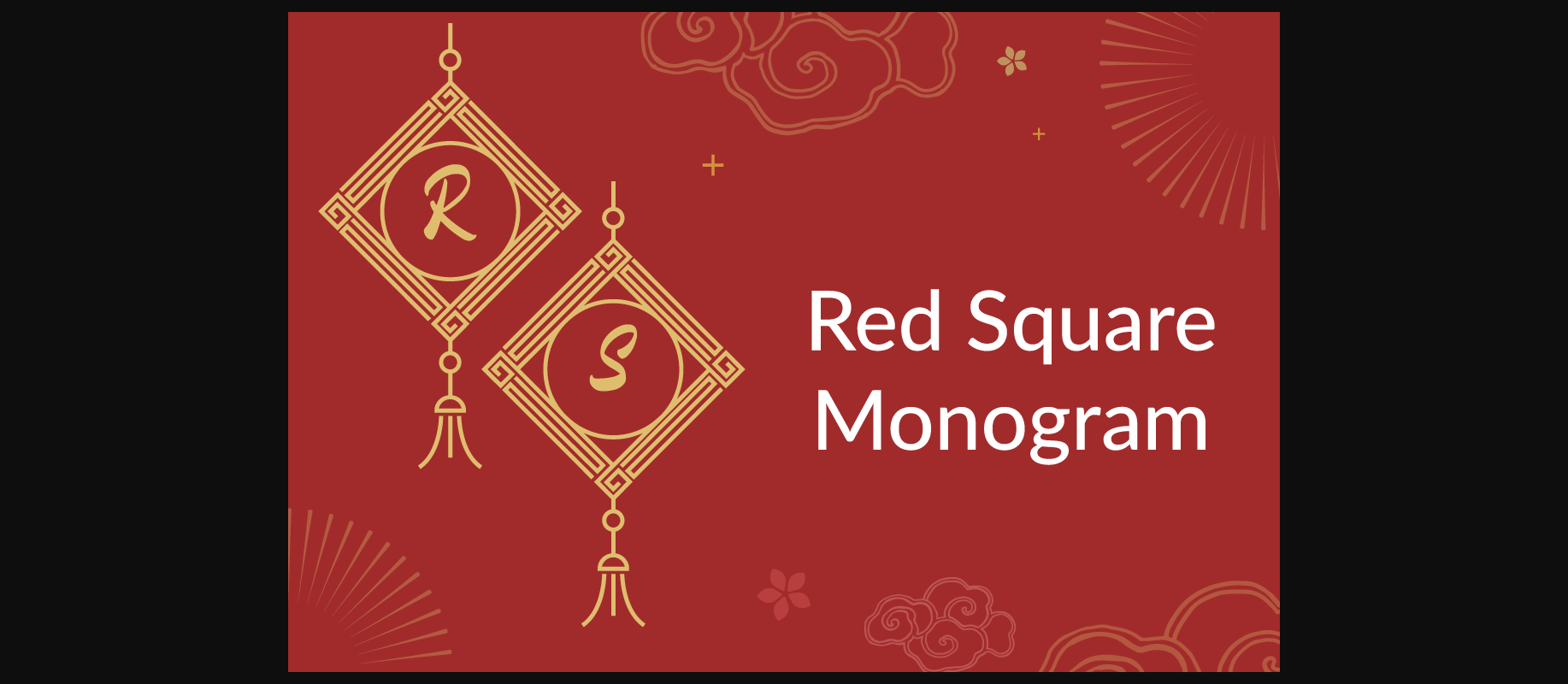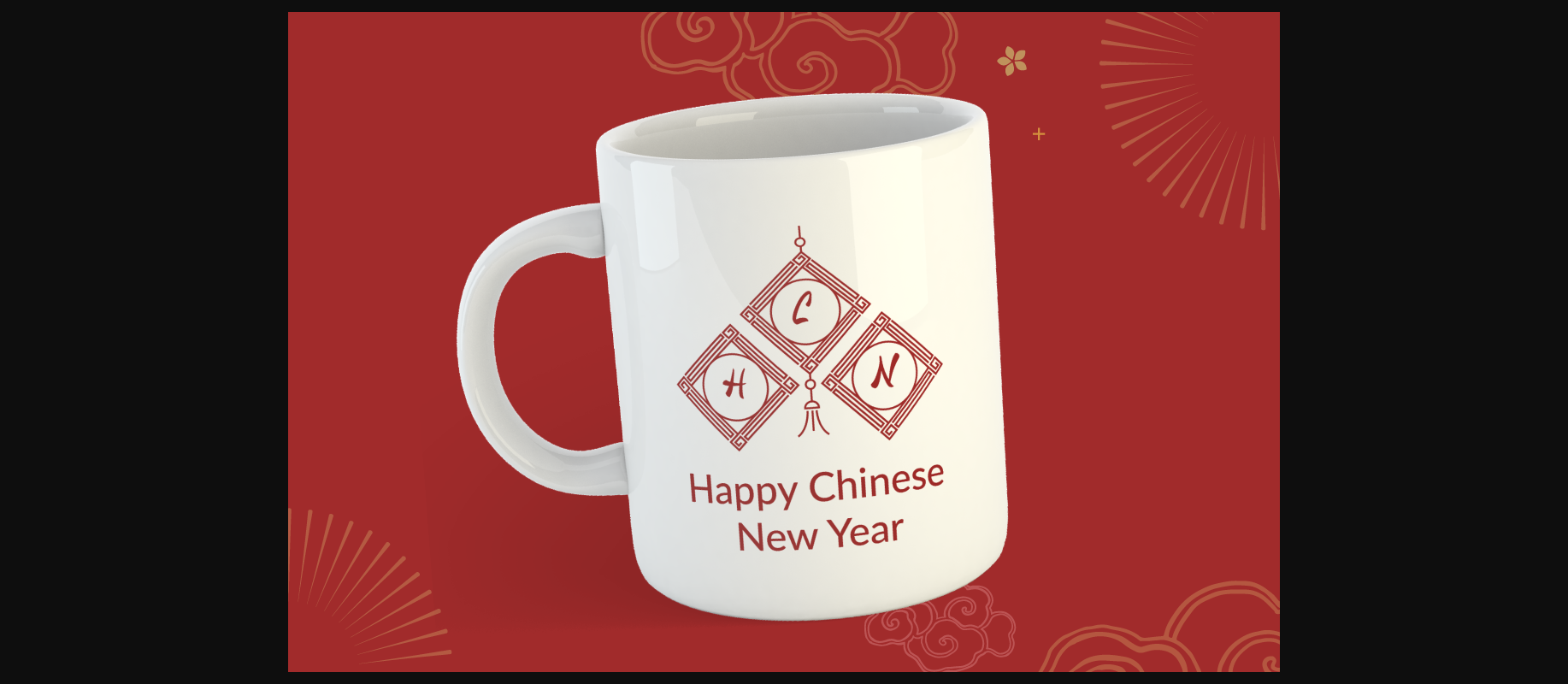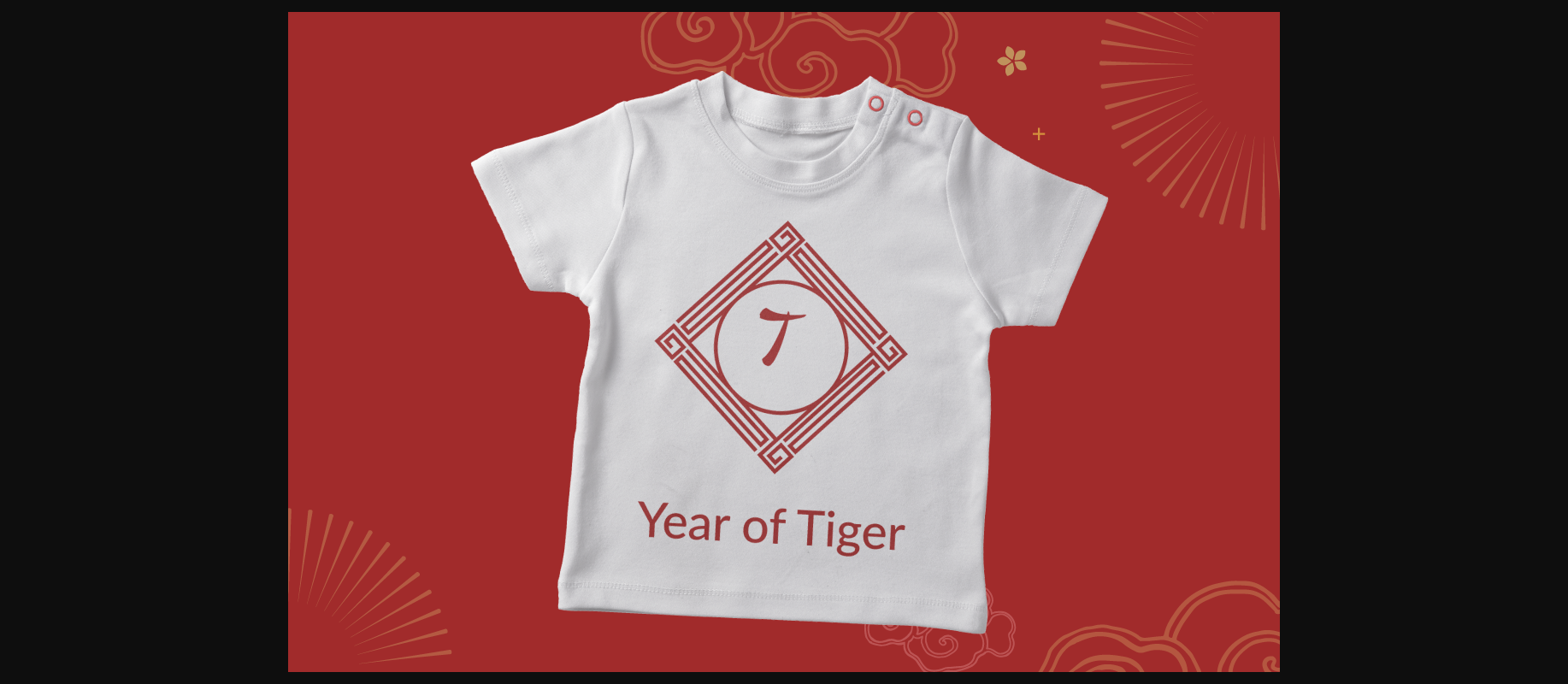
About Red Square Monogram Font
Red Square Monogram is a decorative font inspired by Chinese culture. Fall in love with its authentic style, and use it to make amazing products. Add it to your special occasion designs, business cards, logos, branding, social media posts, and wedding invitations, and you’ll notice how it makes them stand out!